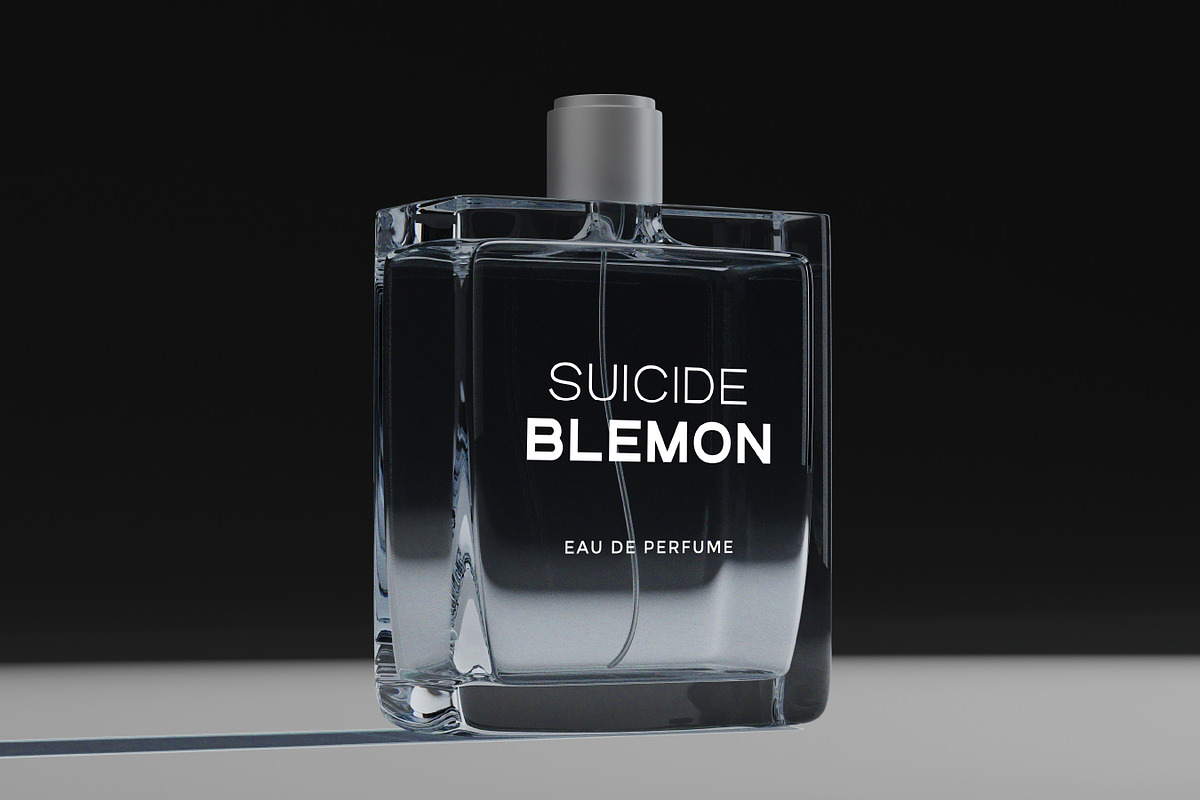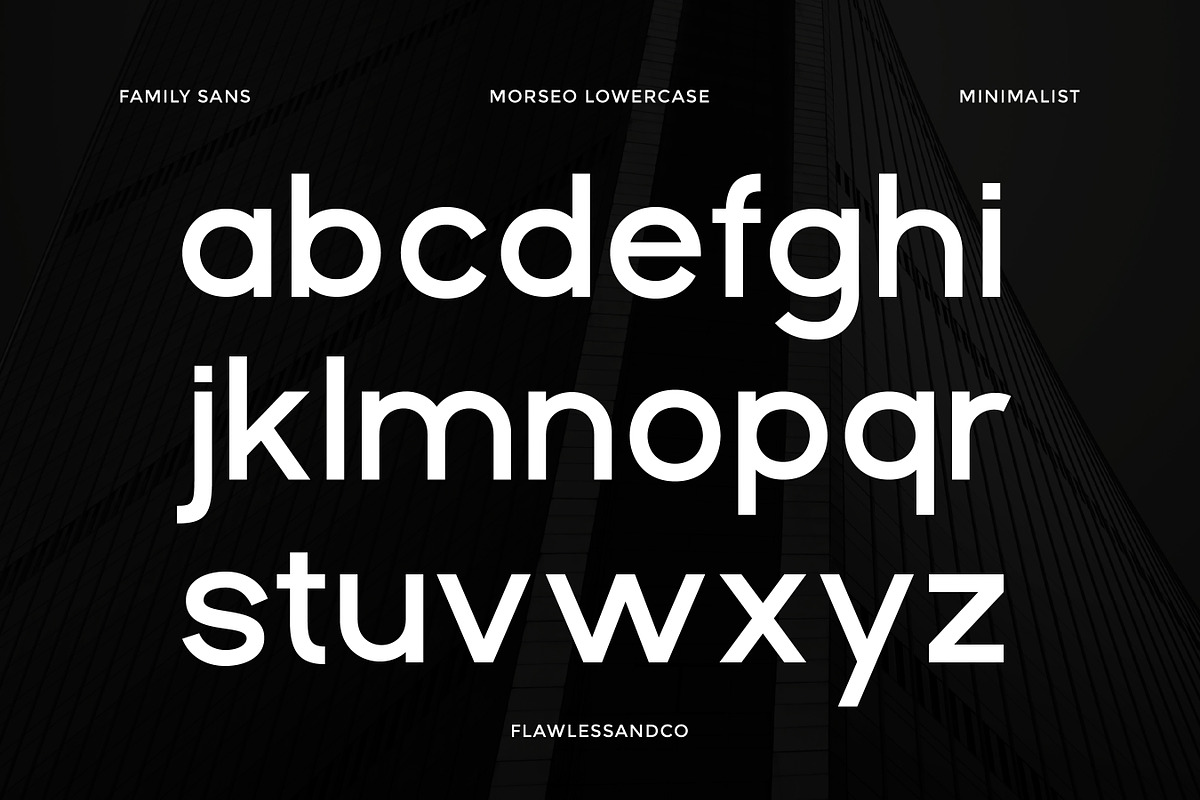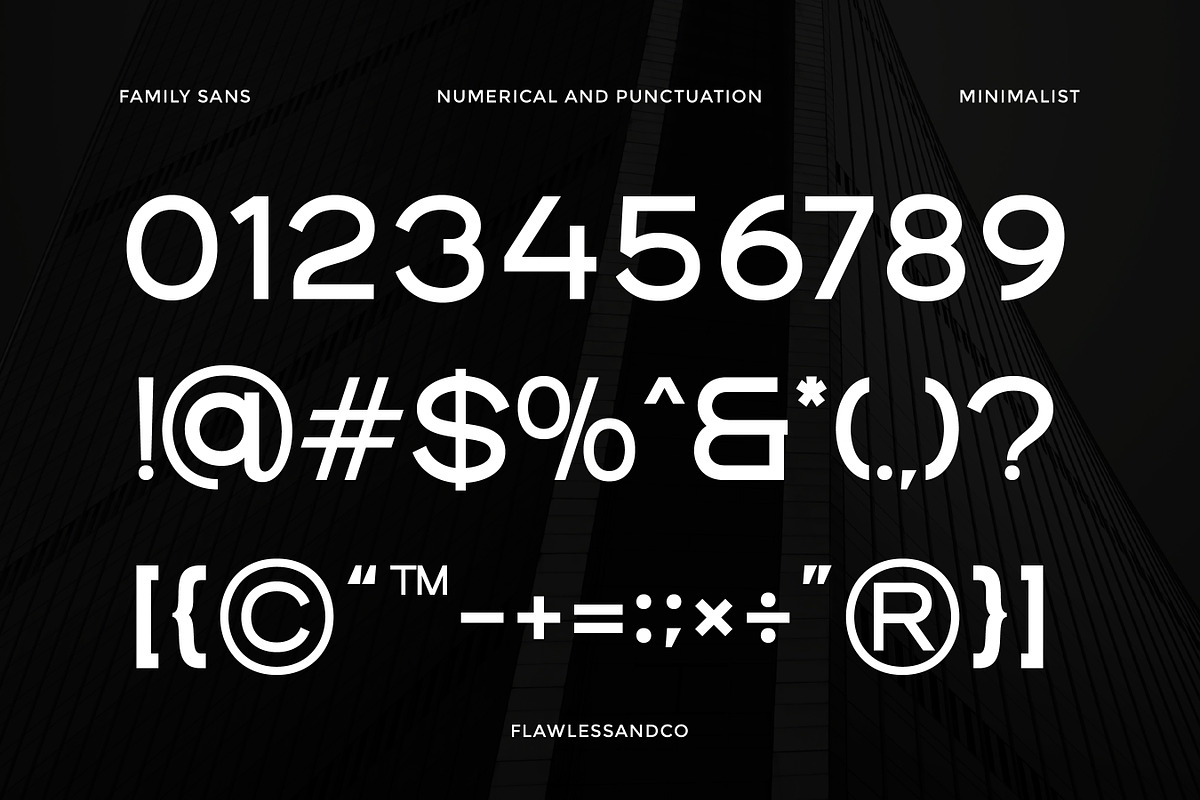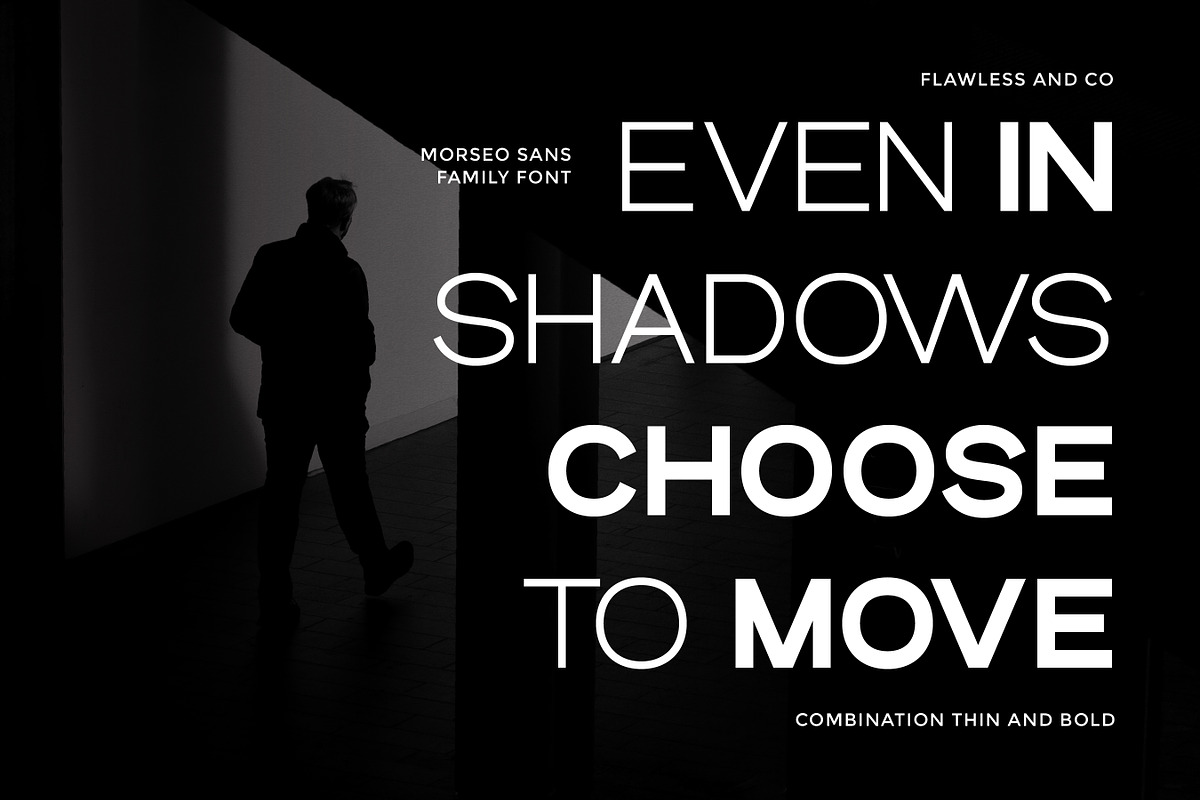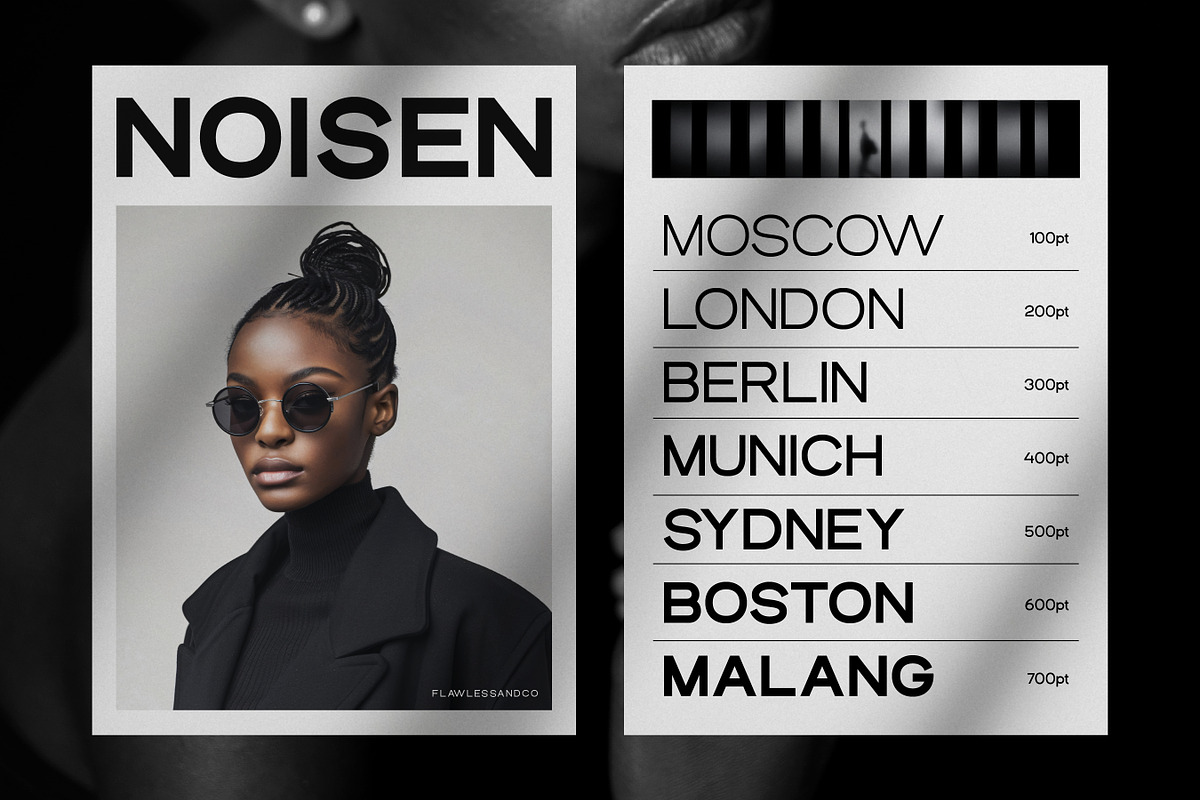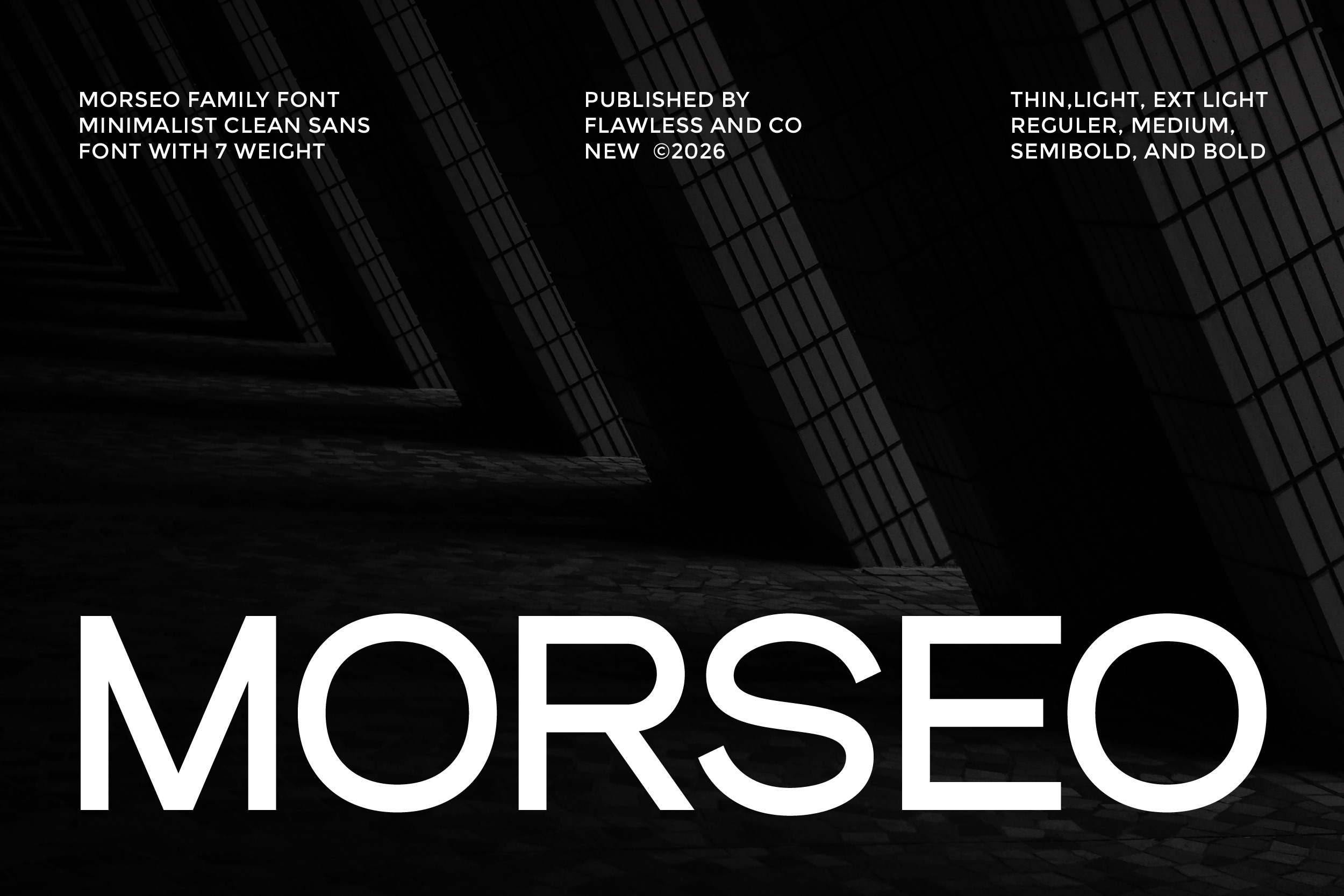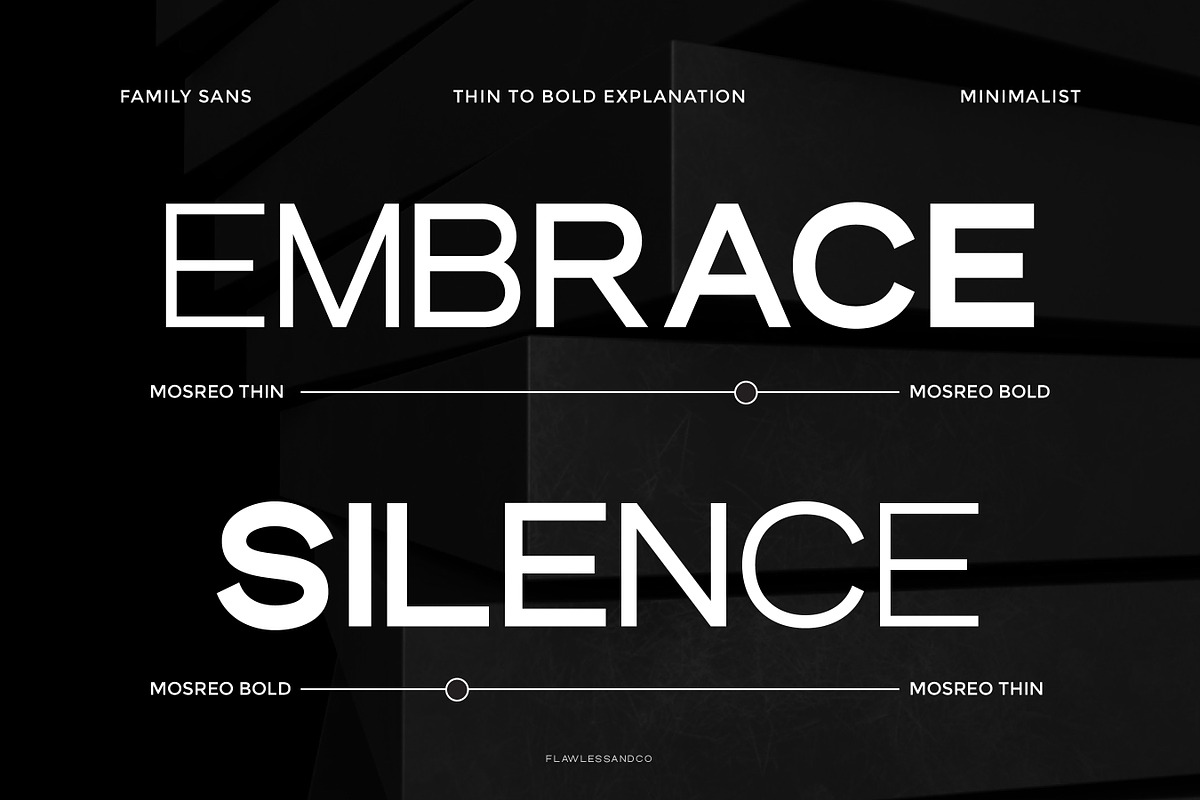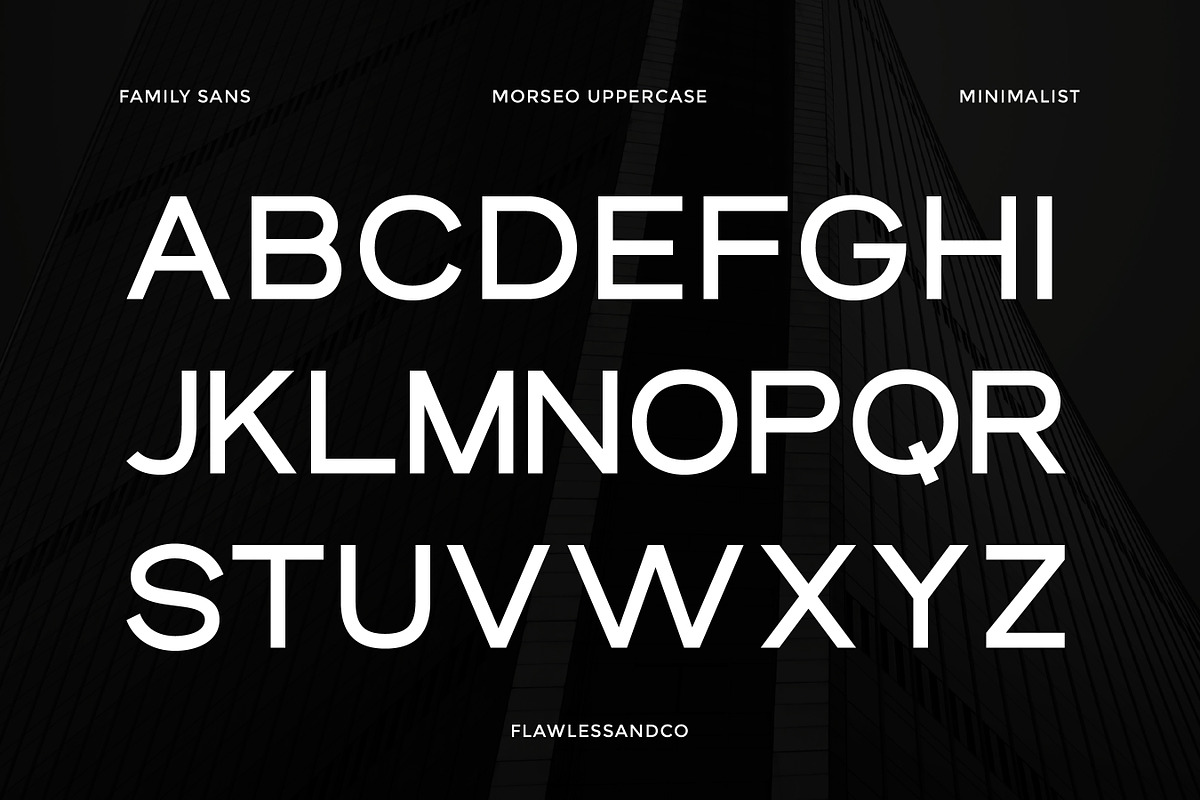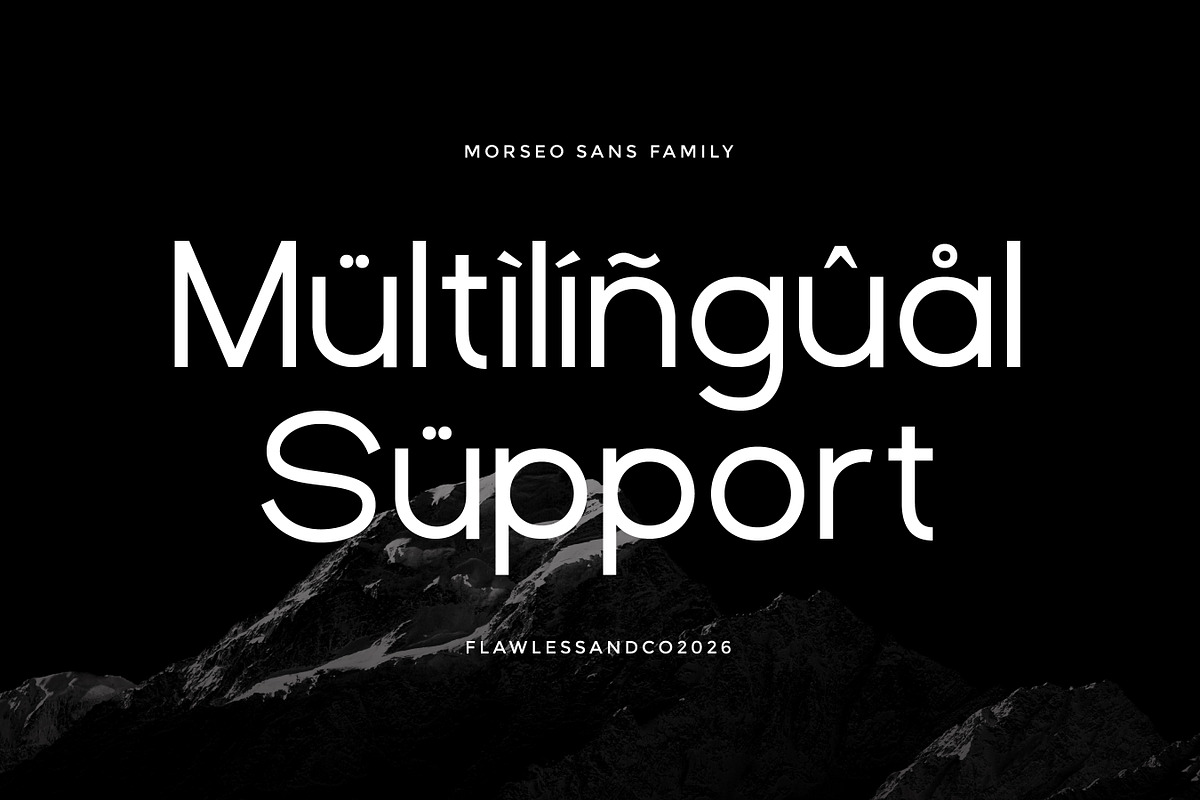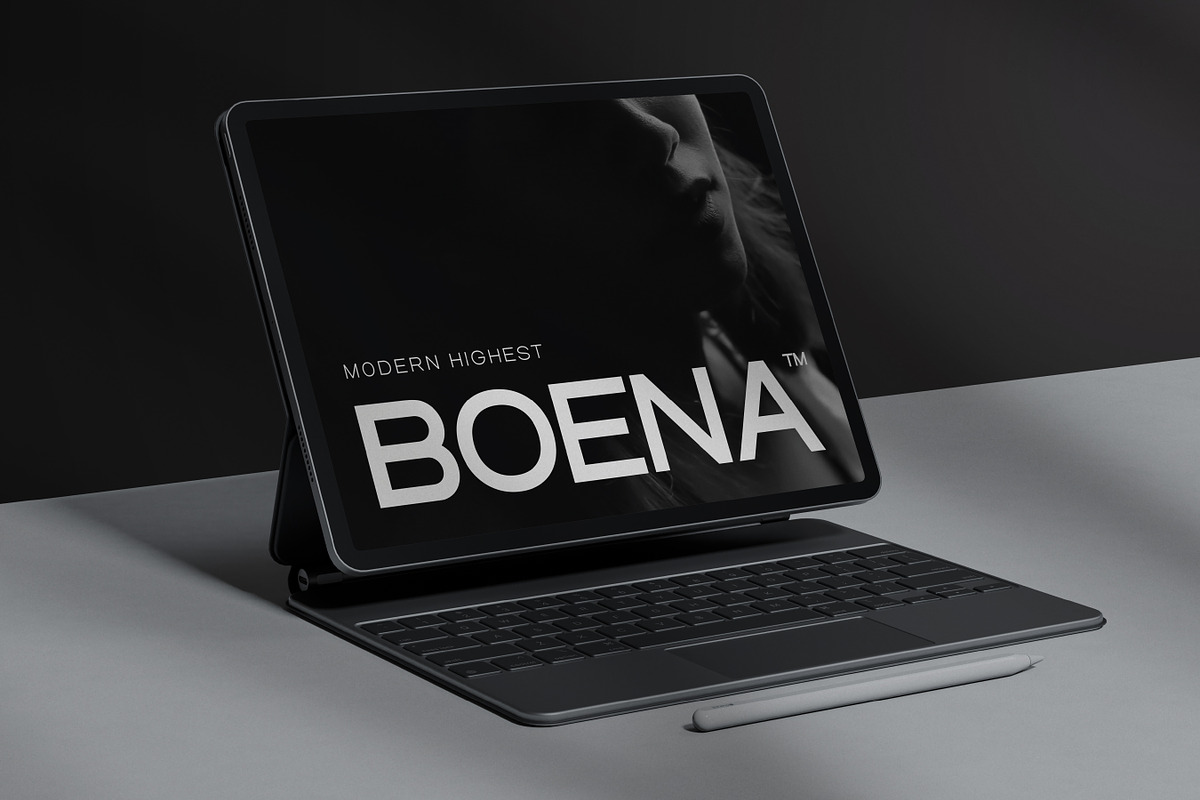
Morseo - Family Sans Serif Font
Morseo is a minimalist sans serif family font designed with a clean, modern, and highly versatile character. Built for clarity and balance, Morseo delivers a professional look that feels timeless yet contemporary, making it ideal for a wide range of design needs. With 7 carefully crafted weights—from Thin and Extra Light to Semibold and Bold—this font family offers excellent flexibility for both display and text usage.
Who Should Use Morseo?
Morseo is ideal for designers and creators who value clean, modern, and professional aesthetics. It’s a perfect fit for brand designers building corporate identities, startups, and business visuals that require clarity and credibility. UI/UX designers will appreciate Morseo for websites, apps, and digital products thanks to its excellent readability and minimalist structure.
Suitable for:
- Branding & corporate identity
- Logos and brand systems
- Websites & UI/UX design
- Mobile apps & digital products
- Editorial design (magazines, reports, layouts)
- Presentations & pitch decks
- Posters, banners & signage
- Social media graphics